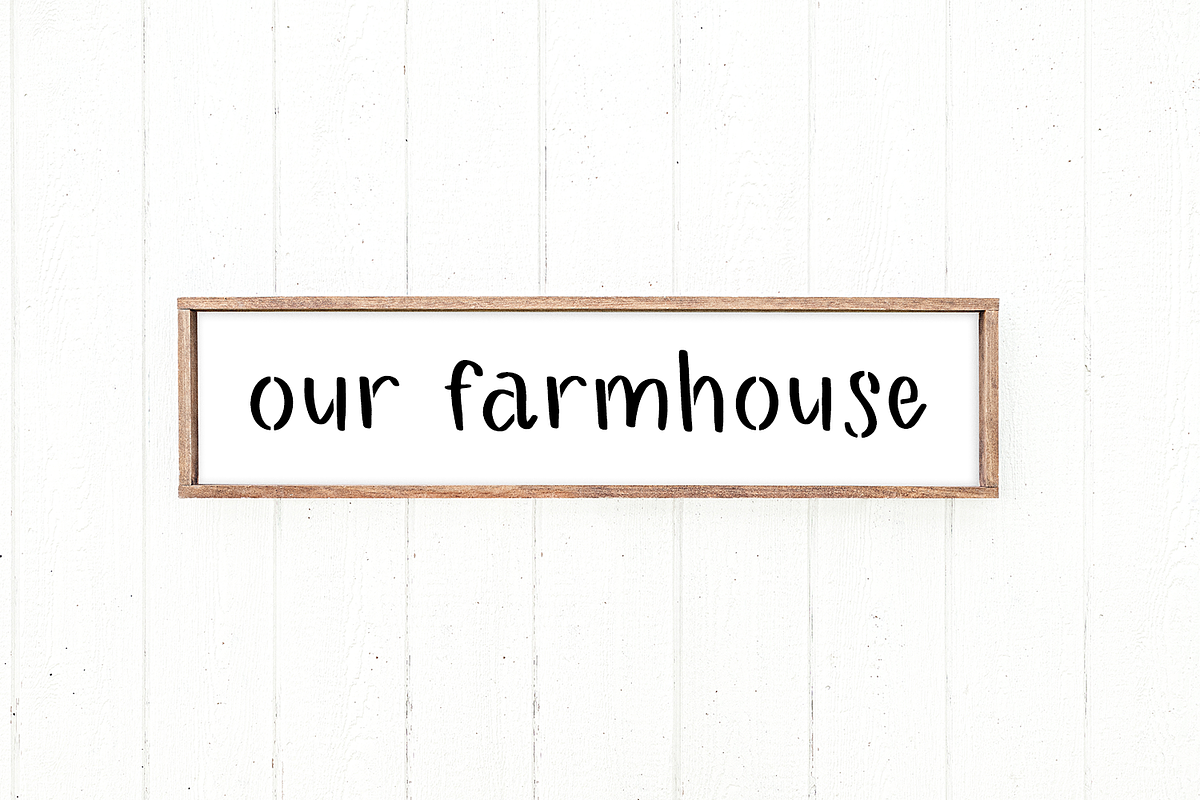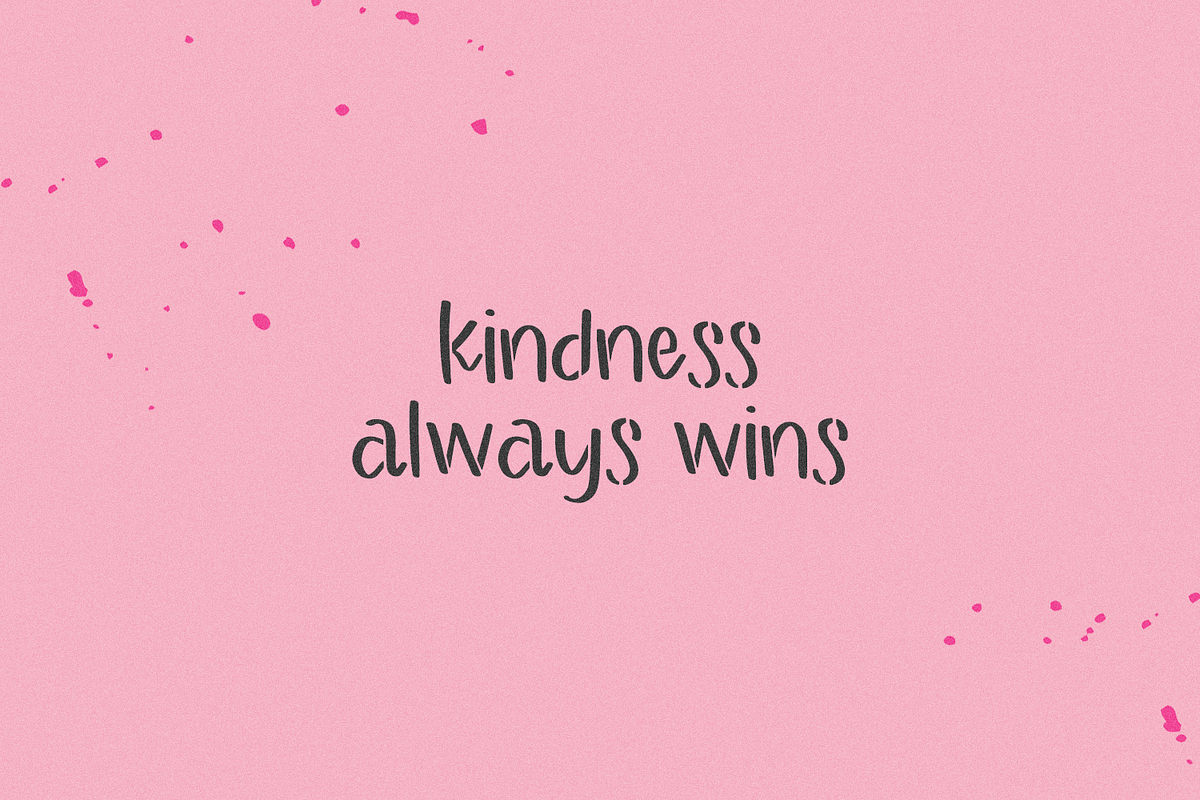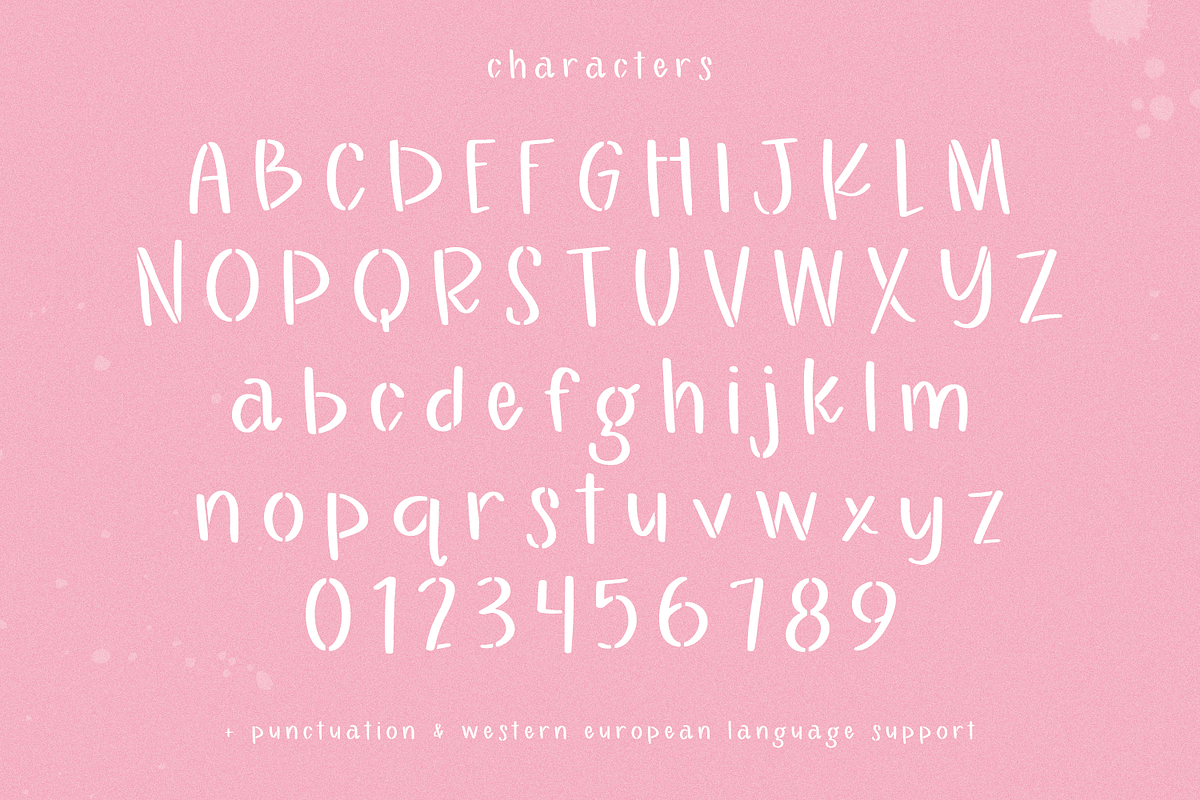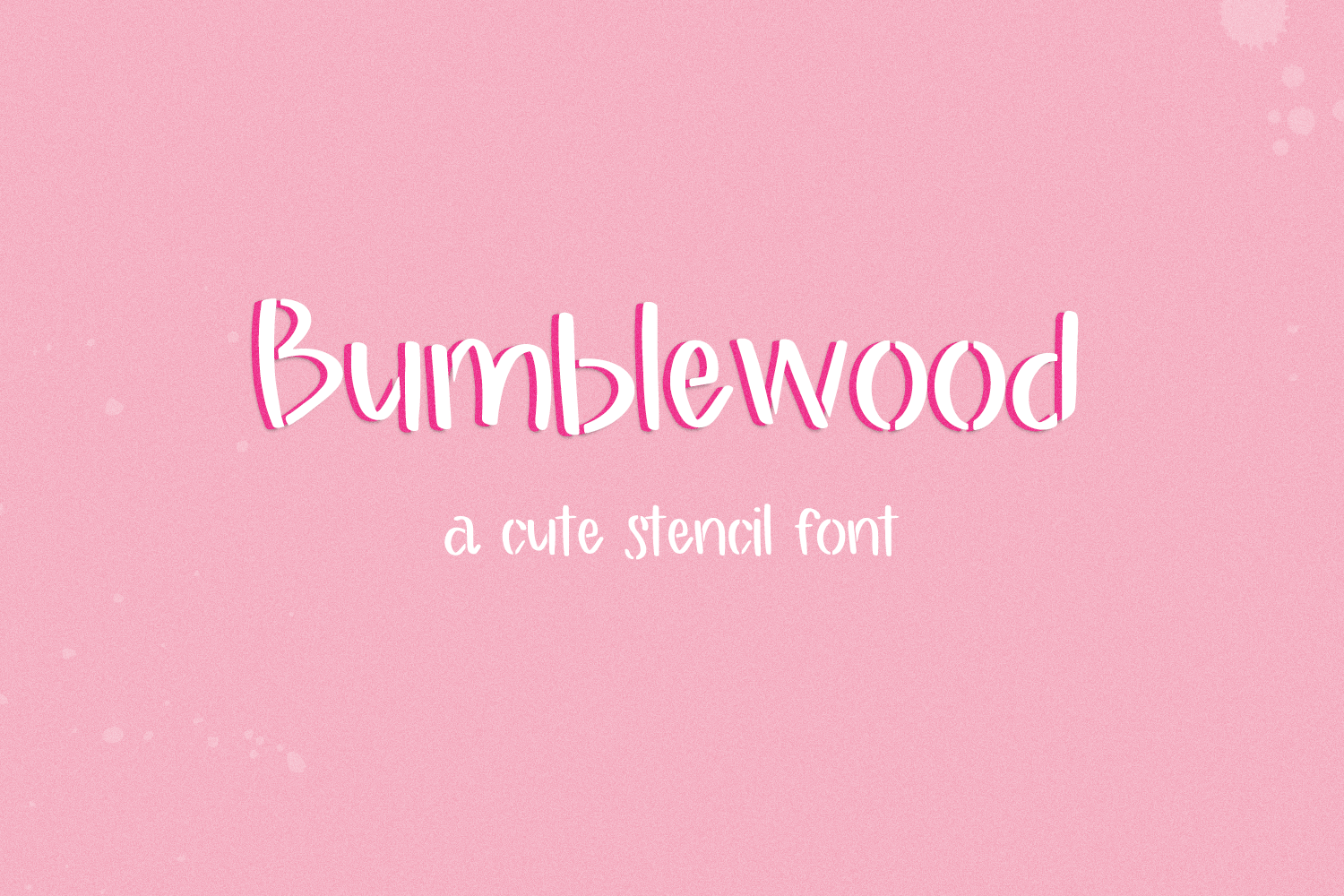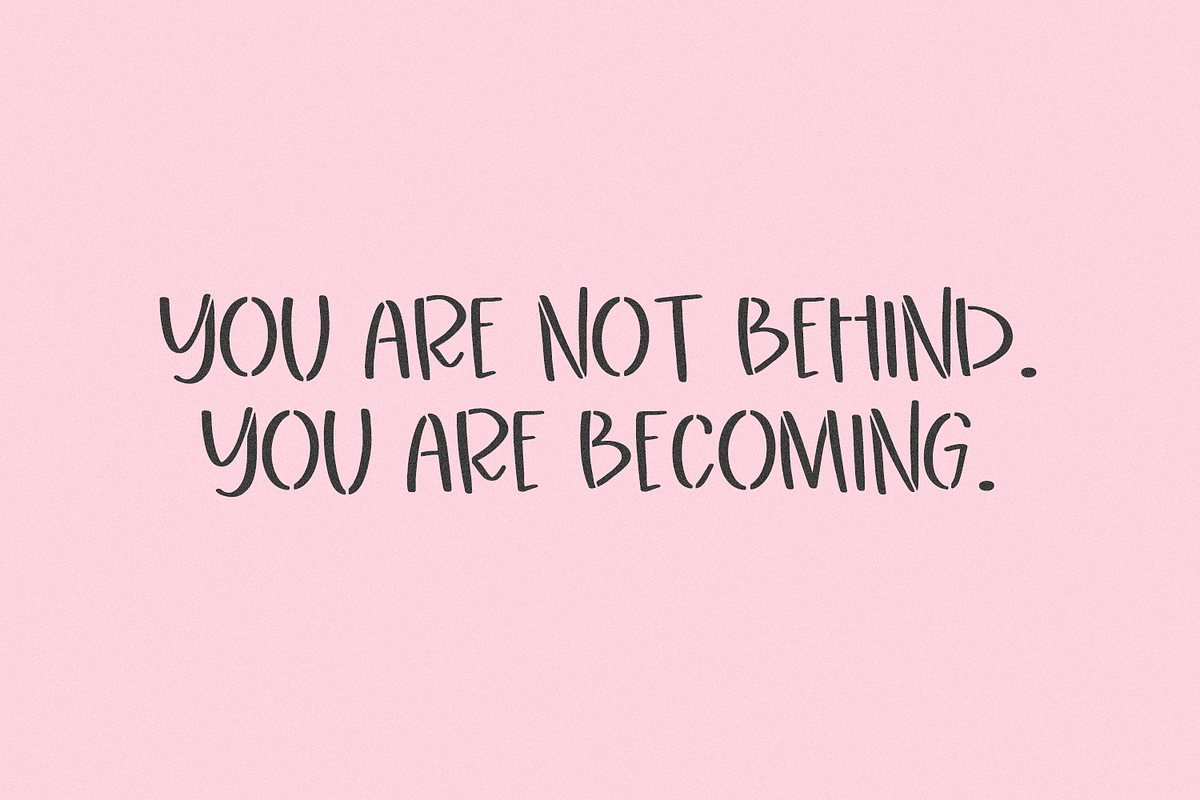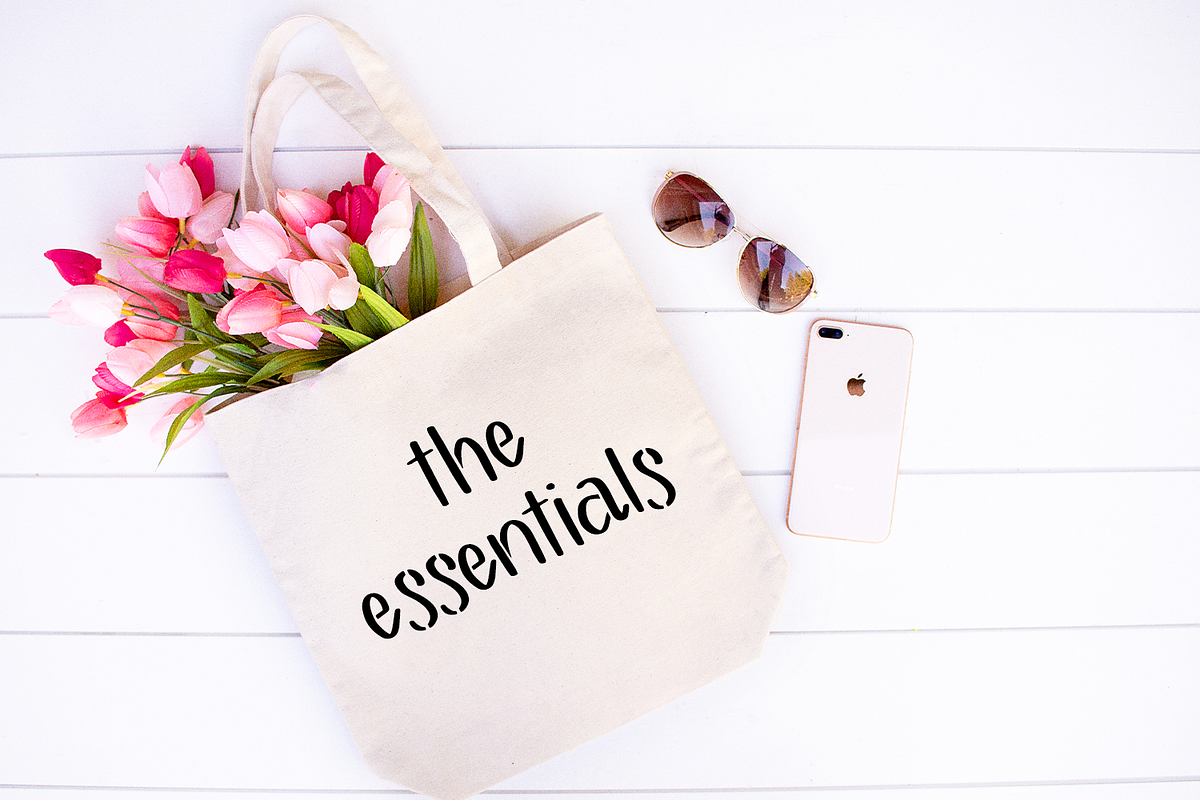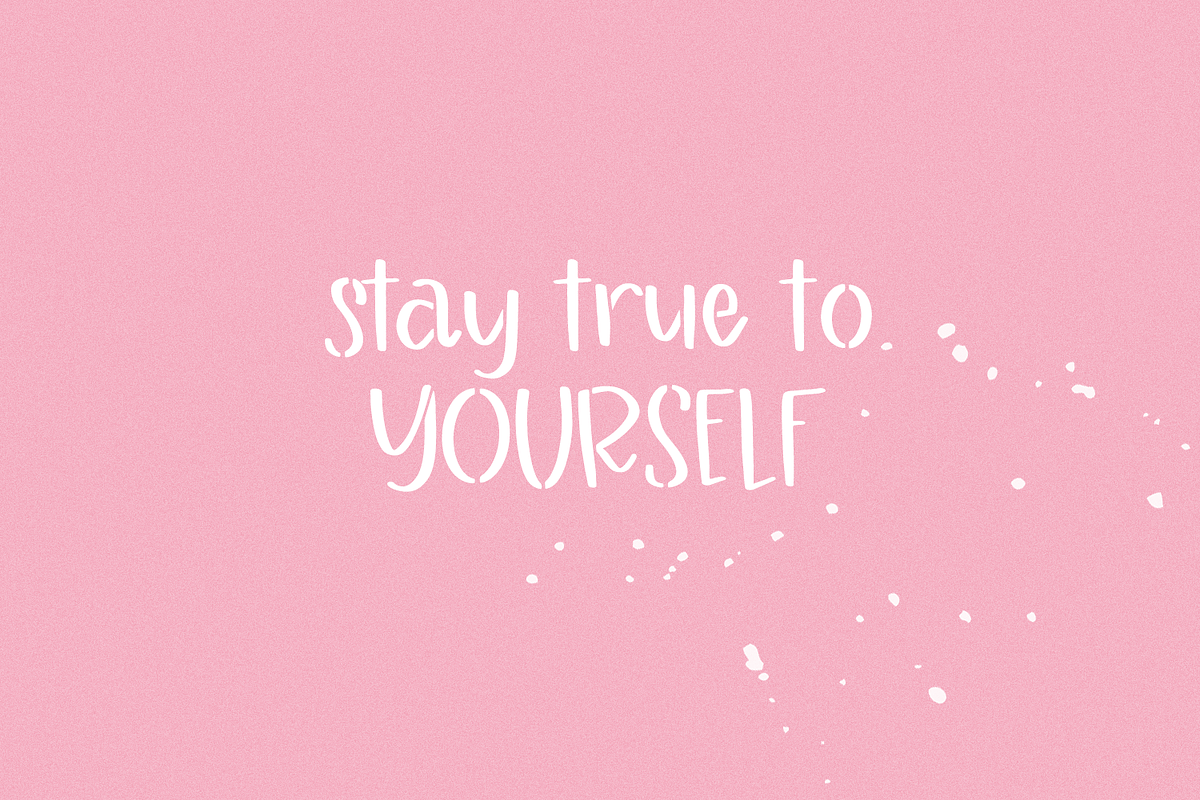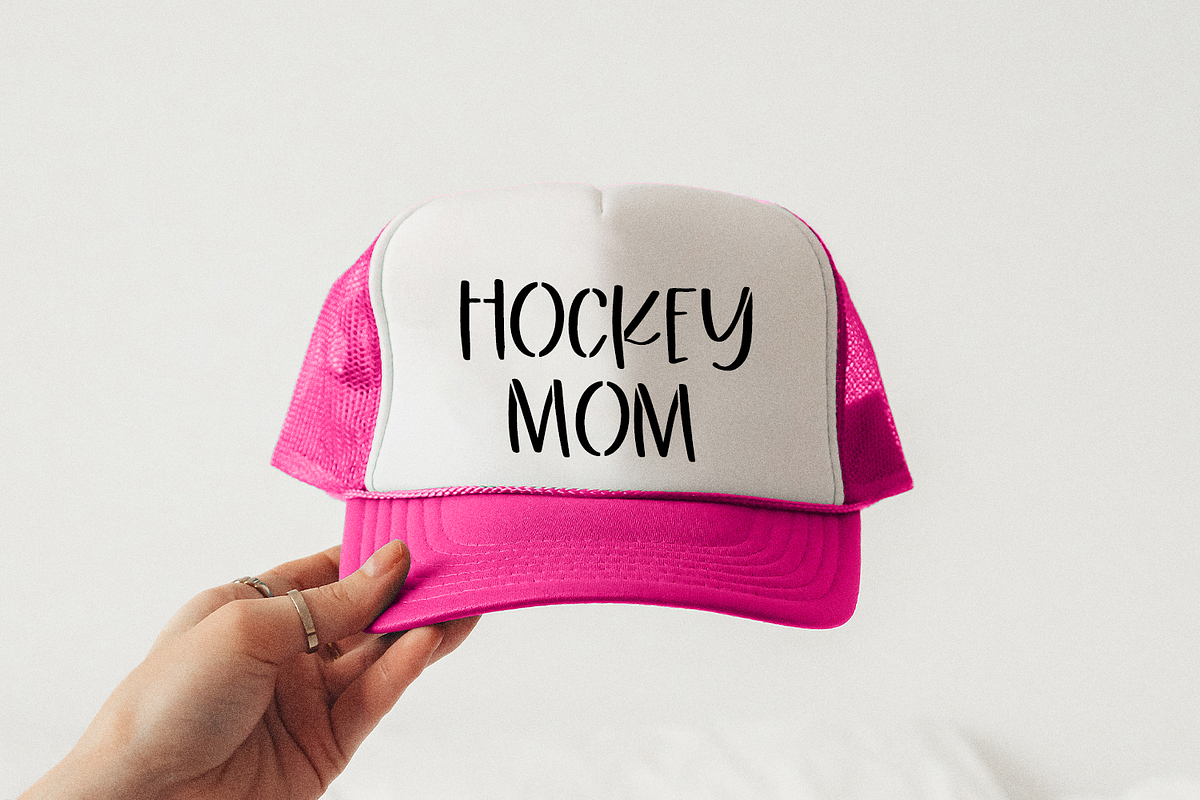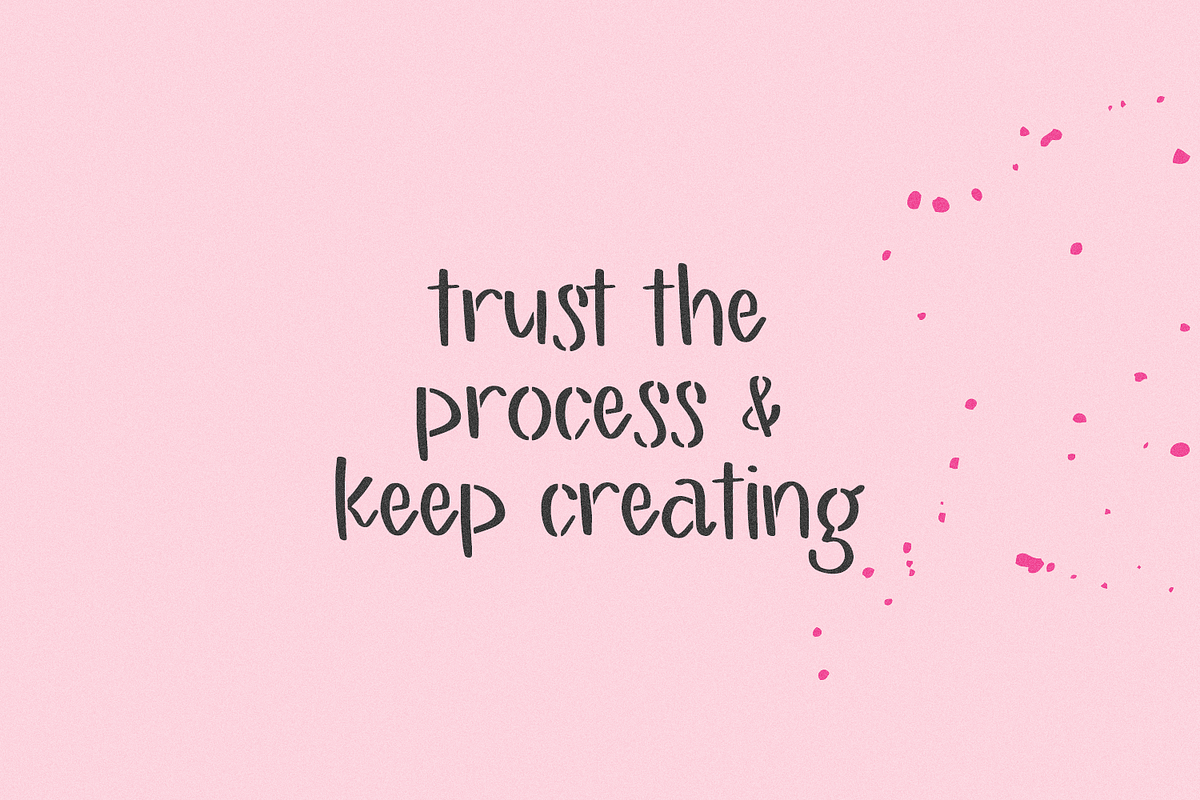
Bumblewood Stencil Font
Bumblewood Sans is an adorable stencil-style sans font, perfect for logos & branding, greeting cards, painted banners, digital planners, note-taking apps, Canva, Cricut projects, Silhouette projects, designing SVG files, laser cutting projects, & more.
- full upper + lowercase characters
- numbers + punctuation
- Western European language support - English, French, Spanish, Portuguese (Brazil), Portuguese (Portugal), Italian, German (Germany), German (Austria), Dutch, Danish, Swedish, Norwegian (Bokmål and Nynorsk), Finnish, Icelandic, Irish, Welsh